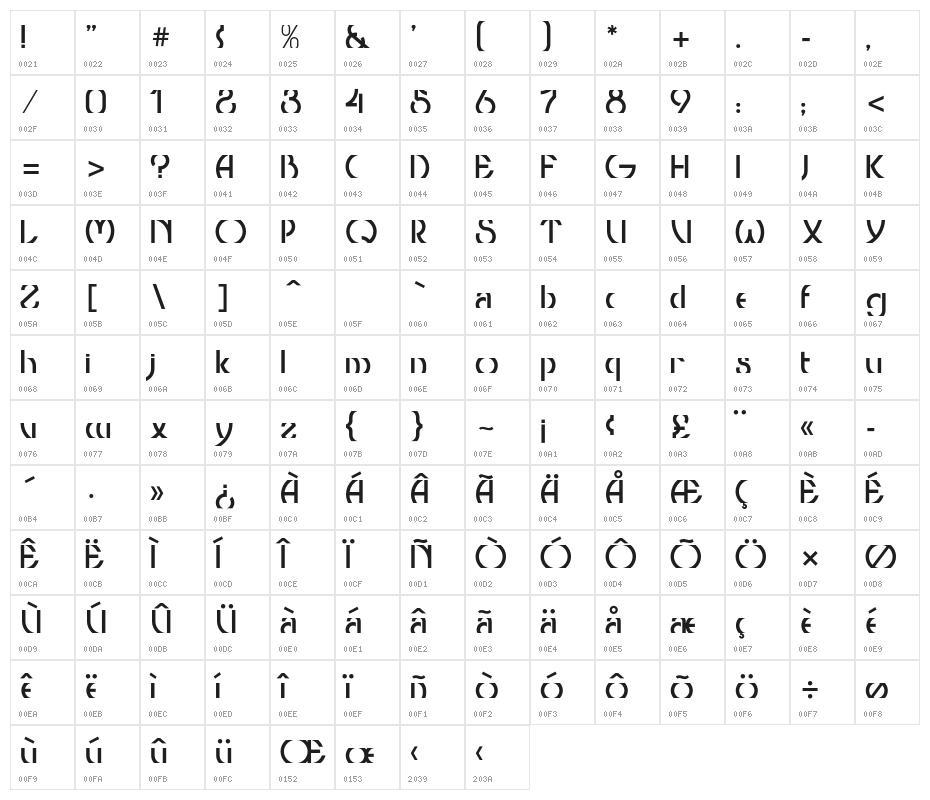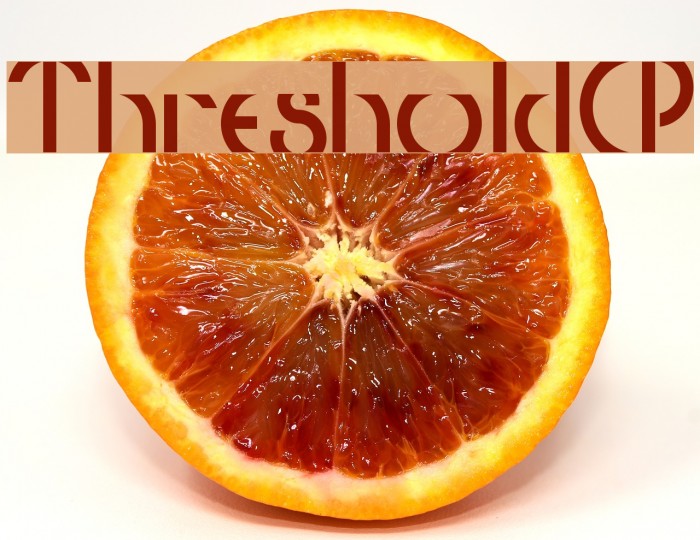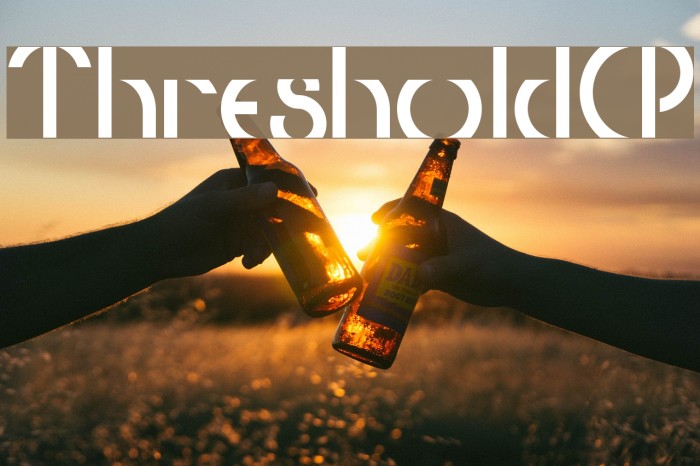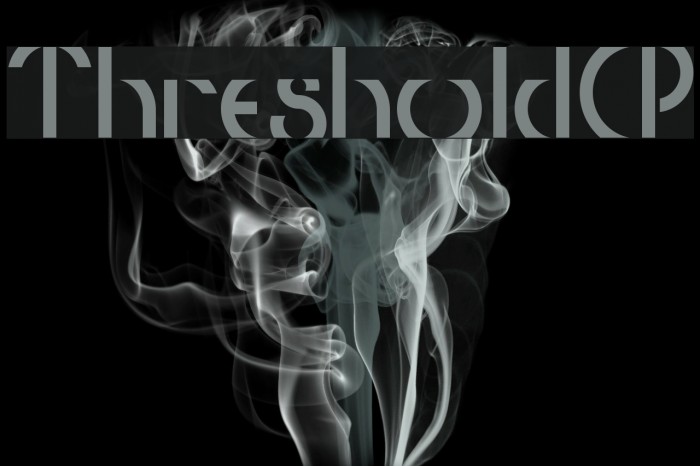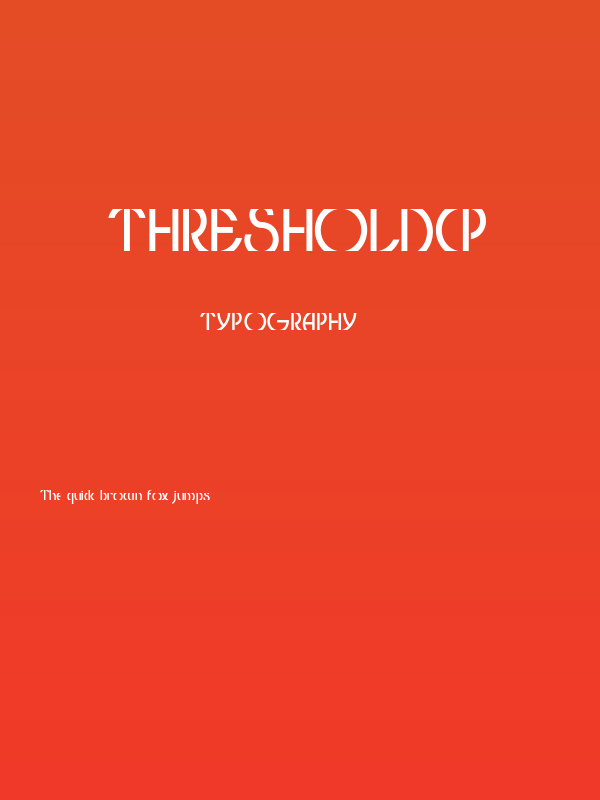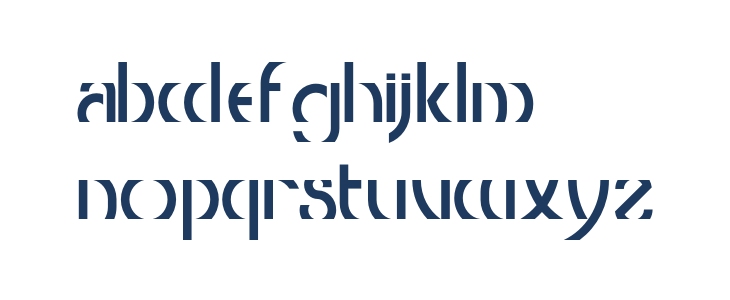
ThresholdCP Font
ThresholdCP Description
This font features a modern and geometric design with a unique stencil-like appearance. The characters are constructed with bold, angular cuts and sharp edges, creating a futuristic and dynamic look. The uppercase and lowercase letters maintain a consistent style, with certain parts of the letters removed to enhance the stencil effect. The numerals and special characters follow the same design principles, ensuring a cohesive appearance across all glyphs. This font is ideal for projects that require a bold and striking visual impact, such as branding, posters, and digital media.
| Proposed Projects | Ideal for branding, posters, digital media, and any project requiring a bold visual impact. |